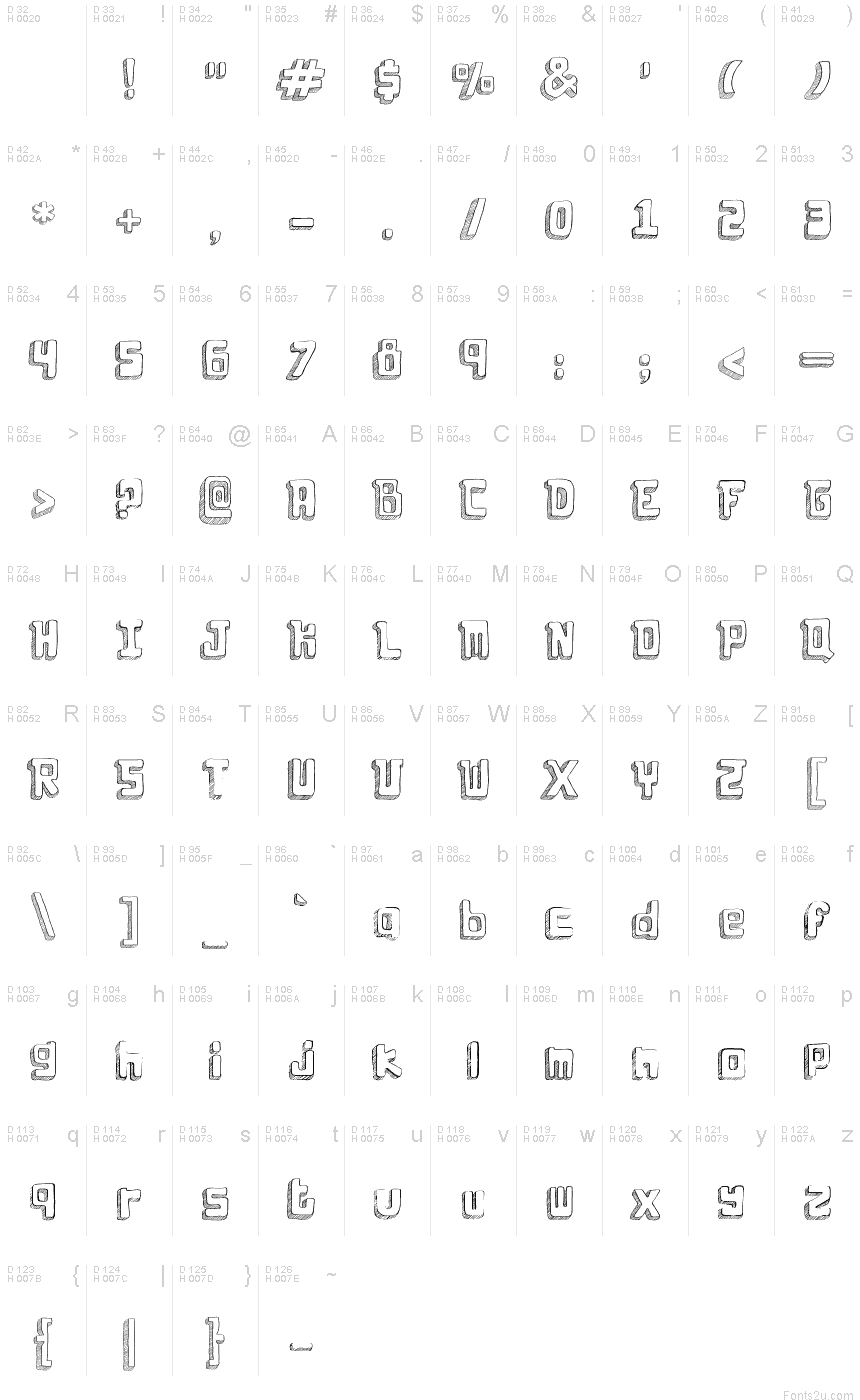
LaBoldyta
LaBoldyta is a free cartoon display font with broad, chunky, softly squared letters and a lively outlined construction. Uneven contours keep the forms slightly loose, and the offset hatched shadows give them the look of hand-inked dimensional lettering.
A comic shop or playful snack brand could use it for logos, packaging, and signage. The striped shadow motif connects the type to comic illustration, making it especially apt for children's publishing and colorful event posters built around drawn characters.